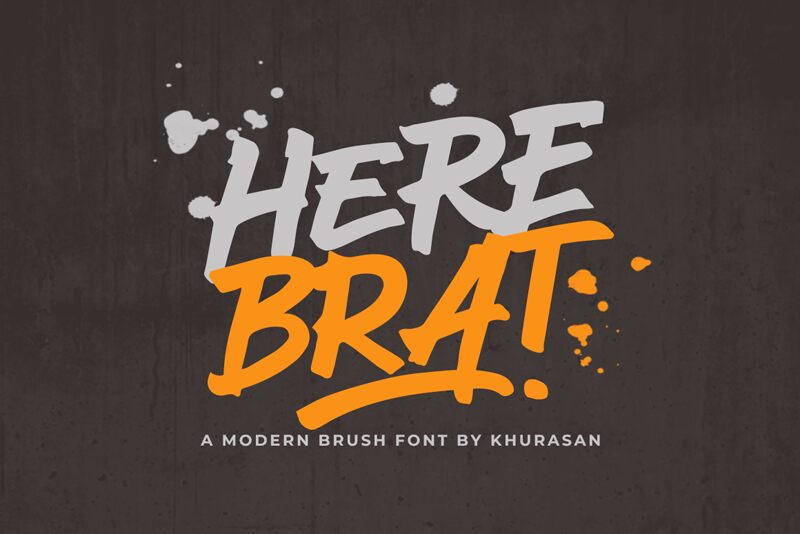
The modern brush script of Here Brat font, designed by Khurasan, is perfect for crafting eye-catching designs. This bold and stylish typeface will lend a unique touch to all your creative projects, from logos to greeting cards.
Here Brat